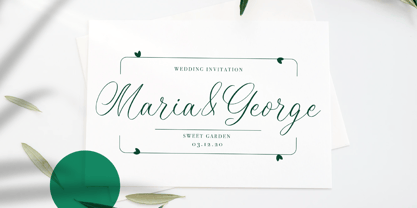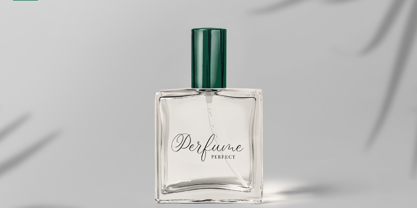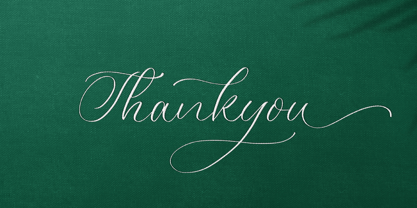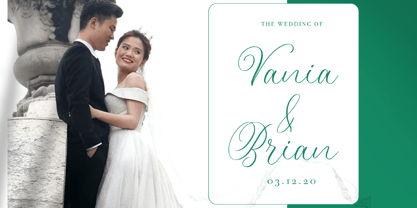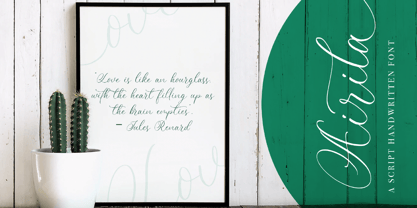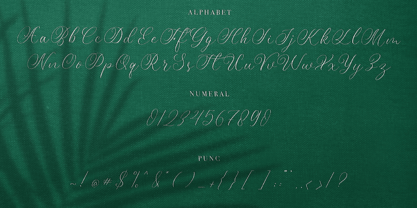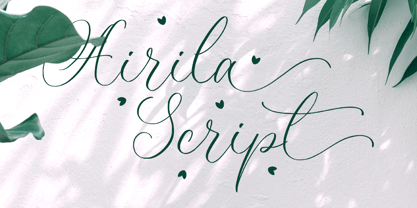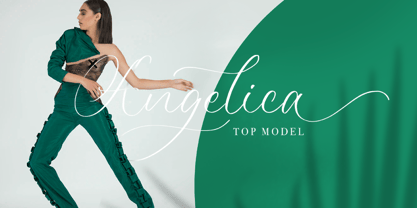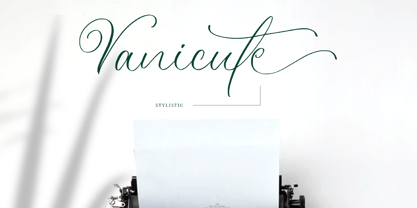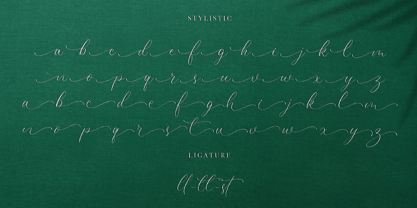
Airila
The Airila Font Family was designed by Hayinah and published by Rockboys Studio. Airila contains 1 styles. More about this family
Airila is an elegant script handwritten font that flows with graceful sophistication. Inspired by modern calligraphy, Airila features smooth curves, delicate swashes, and refined ligatures that bring a touch of luxury and romance to any design. Perfectly suited for wedding invitations, branding, social media graphics, beauty packaging, and upscale editorial projects, this font was created to captivate and charm at first glance.
Designed with both style and function in mind, Airila comes with a full character set, including uppercase and lowercase letters, numbers, punctuation, and multilingual support. It also includes a variety of stylistic alternates and beautiful ligatures that allow you to customize your typography with ease. Whether used as a signature-style logotype or a poetic headline, Airila adds a timeless elegance to every project.